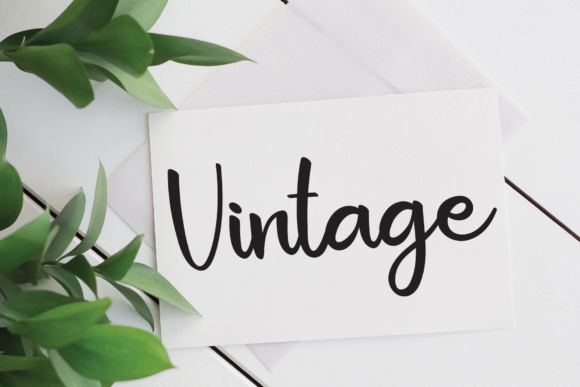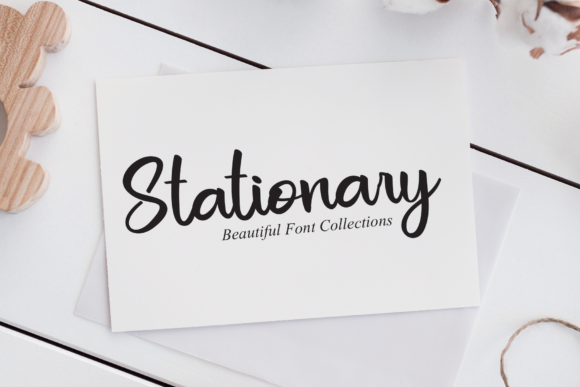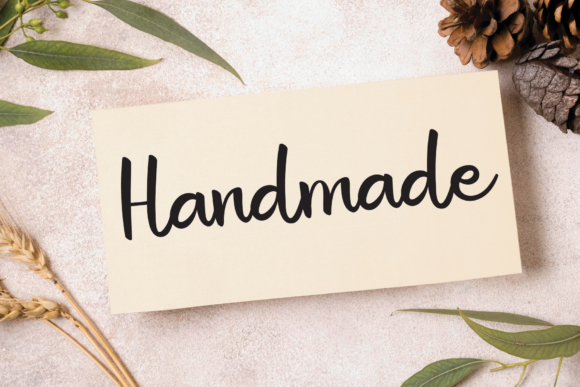
Sunset Font
Introducing a font that encapsulates sweetness, romance, and beauty in every stroke, this script font is a true gem for designers seeking an elegant and charming touch for their projects. With its gracefully crafted curves in each letter, the font goes beyond mere typography—it becomes a visual representation of sophistication and emotion.
The romantic allure of this script font is evident in its design, where every curve is meticulously shaped to convey a sense of beauty and tenderness. Whether you’re working on wedding invitations, love letters, or any project that requires a touch of romance, this font becomes an invaluable companion, enhancing the emotional resonance of your text.
What sets this script font apart is its PUA coding, a feature that elevates the user experience by providing easy access to all the glyphs and swashes. Designers can seamlessly integrate a variety of stylistic elements into their projects, allowing for creative exploration without limitations. The PUA coding ensures that the font not only looks beautiful but is also user-friendly and versatile.
In the realm of design, where conveying emotions is as crucial as the visual aesthetics, this script font shines. Its beautiful curves and romantic aesthetic make it well-suited for projects that aim to evoke feelings, creating a visually captivating and emotionally resonant experience for the audience.
Beyond being a mere typeface, this sweet, romantic, and beautiful script font becomes a storytelling element in your designs. It speaks a language of elegance and charm, transforming ordinary text into a visual masterpiece. With its PUA coding, the font empowers designers to infuse their creations with creativity and personality effortlessly.
In conclusion, this script font is a harmonious blend of sweetness, romance, and beauty, encapsulated in each letter. Its elegant curves and PUA coding make it a valuable tool for designers seeking to create visually stunning and emotionally resonant projects. Incorporate this font into your designs, and let it be the brushstroke that paints a canvas of elegance, leaving a lasting impression on your audience.